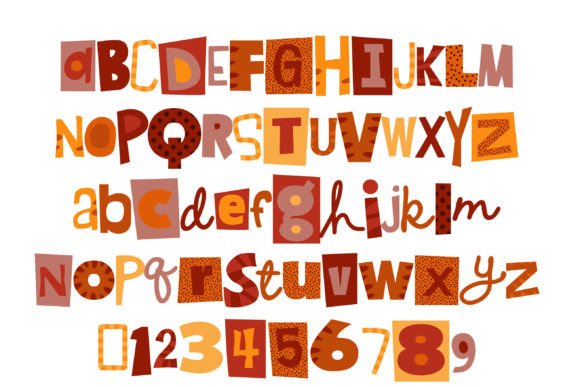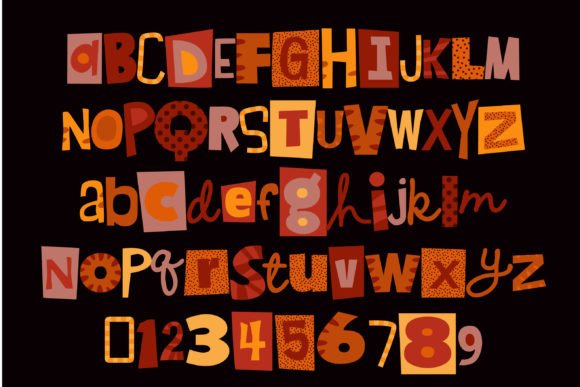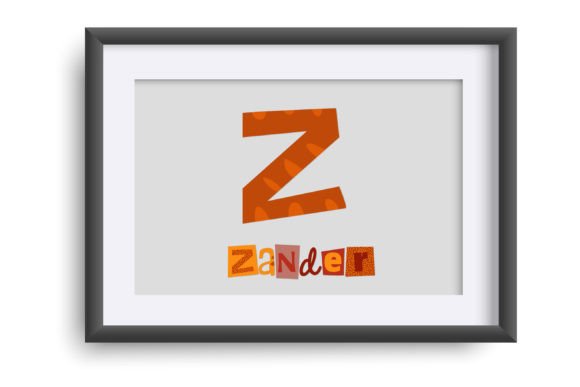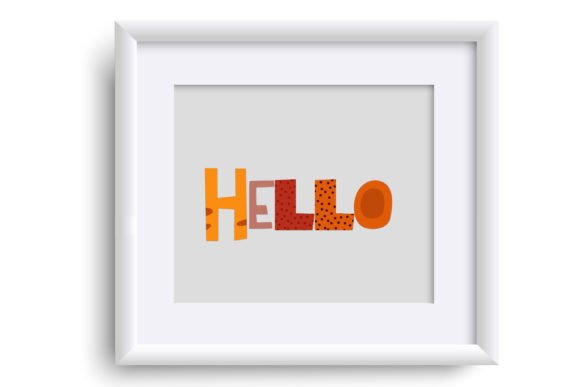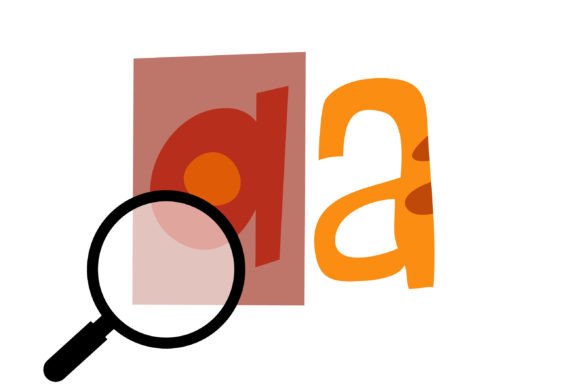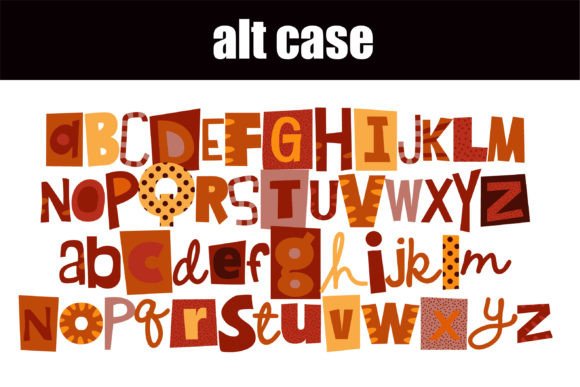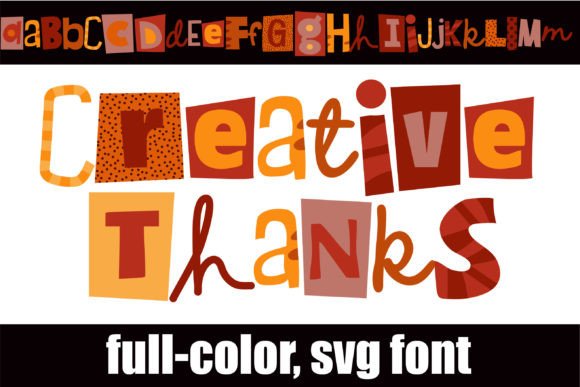
Introducing Creative Thanks Font: Elevate Your Thanksgiving Designs with Vibrant Colors
Are you looking for a unique and creative way to express your gratitude this Thanksgiving? Look no further than the Creative Thanks Font, a stunning full-color font that brings a Thanksgiving color palette to life through creative lettering. This exciting font is perfect for designers, crafters, and anyone looking to add a personal touch to their holiday projects.
What is Creative Thanks Font?
Creative Thanks Font is a specially designed font that features a beautiful Thanksgiving color palette, making it an ideal choice for creating festive and eye-catching designs. This font is not just any ordinary font – it’s a full-color font, also known as an Opentype-SVG font, which means it can be used in various design software, including PhotoShop, Illustrator, Silhouette, and Inkscape.
Key Features of Creative Thanks Font
- Full-color font: Enjoy a vibrant and colorful design with our unique full-color font technology.
- Thanksgiving color palette: Get into the holiday spirit with our carefully curated color palette, perfect for Thanksgiving designs.
- Creative lettering: Add a personal touch to your designs with our creative and stylish lettering.
- Alt case available: Take your designs to the next level with our alternative case, featuring different colors for each letter.
Creative Thanks Font is perfect for designers and crafters looking to add a personal touch to their holiday projects. Here are some ideas to get you started:
- Create custom Thanksgiving cards: Use Creative Thanks Font to design beautiful and unique greeting cards for your loved ones.
- Design festive holiday decorations: Add a touch of elegance to your Thanksgiving decorations with custom banners, garlands, and signs.
- Make personalized gifts: Use Creative Thanks Font to create custom gift tags, labels, and wrapping paper.